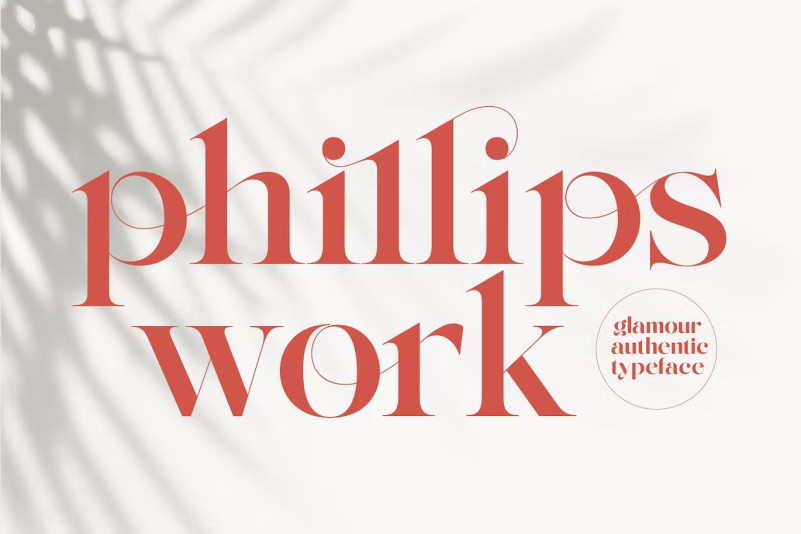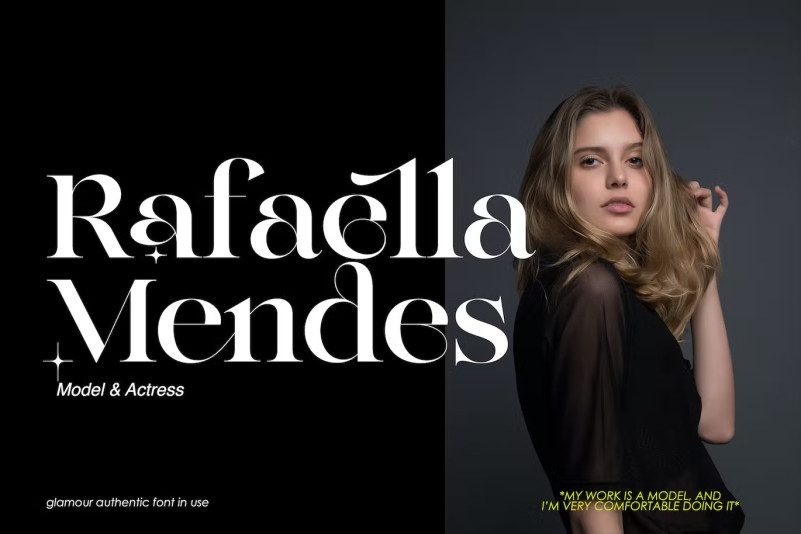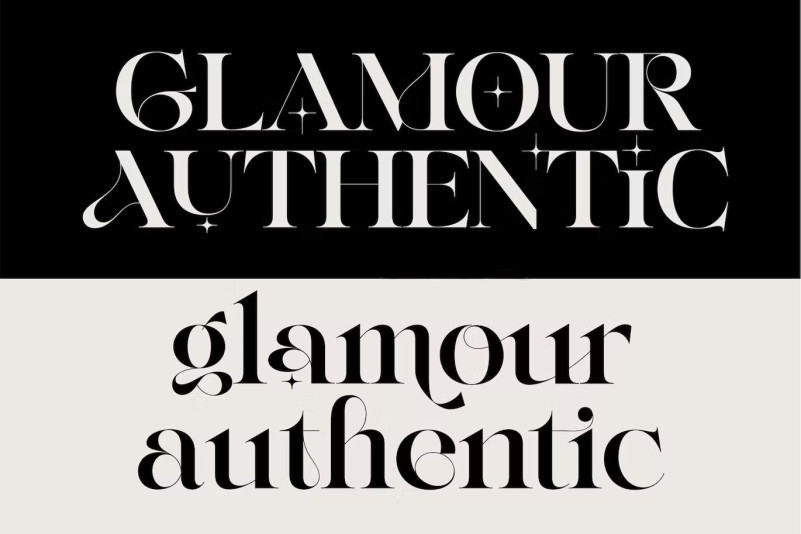
Glamour Authentic Font
Hello, this time we would like to introduce a new product to you, namely “Glamour Authentic”, a classic, feminine and elegant Serif display font with a beautiful alternative stylist.
The font Glamor Authentic is perfect for various projects like logos and branding, invitations, stationery, wedding designs, social media posts, advertisements, print quotes, product packaging, product designs, labels, photographs, watermarks, special events or anything else.